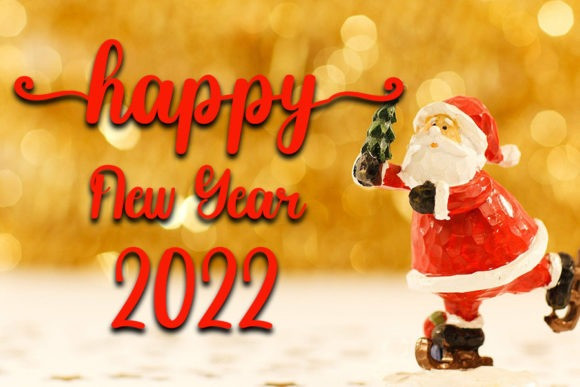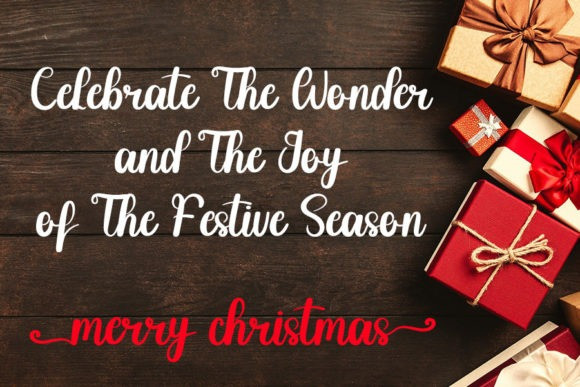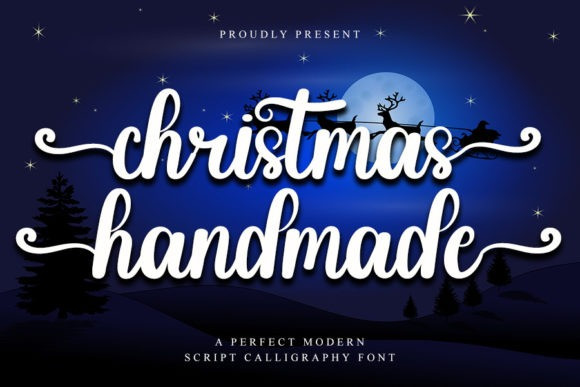
Christmas Handmade Font
Christmas Handmade Script Font is a stylish handwritten font with a contemporary atmosphere and impeccable form, inspired by a timeless classic calligraphy. Not too thin and not too thick, balanced and varied, this font was designed to enhance the beauty of your projects.